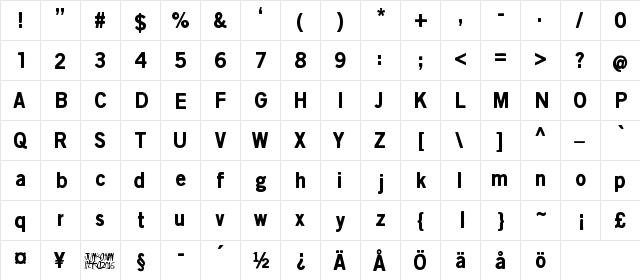
Scratch X Black Regular
Design Context for Scratch X Black Typeface
Scratch X Black is a composed and adaptable typeface that performs quietly and consistently across a wide range of design contexts.